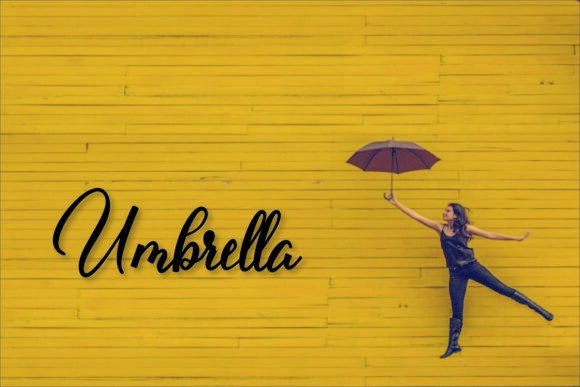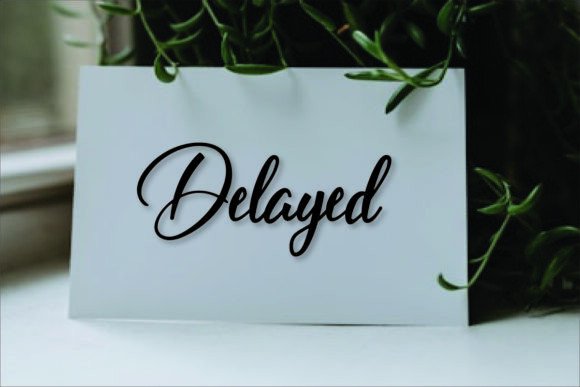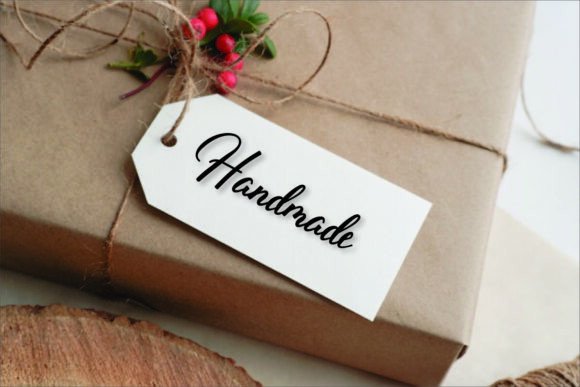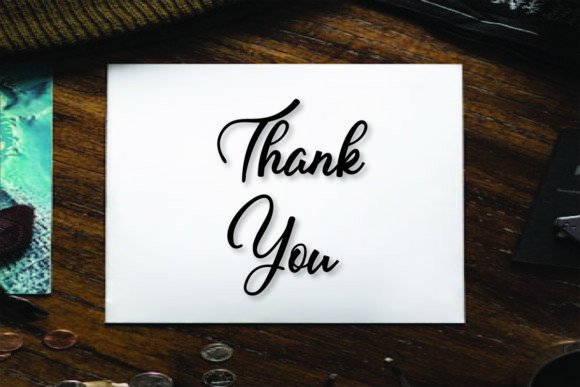
The Perfect Touch of Elegance: Discovering the Beloved Font
Have you ever found yourself staring at a blank page, trying to bring your creative vision to life? The blank slate can be intimidating, but it’s also an opportunity to add that special something that sets your design apart. For many of us, that special something is the perfect font.
Enter the Beloved Font, a trendy handwritten font that exudes a contemporary atmosphere and impeccable form. Inspired by timeless classic calligraphy, this font is the perfect addition to any design project looking to add a touch of elegance and class. Whether you’re working on a wedding invitation, a branding campaign, or a social media post, the Beloved Font is sure to make your design stand out.
Key Features of Beloved Font
- Font Family: Beloved is a modern script font, designed to convey a sense of elegance and sophistication.
- Unique Characteristics: Beloved features a unique, hand-drawn design with subtle flair and personality, making it perfect for creative and design-focused projects.
Beloved Font Review
I’ve had the pleasure of working with the Beloved Font, and I must say it’s a unique addition to any design project. ✨ One of the things I appreciate is its elegant and vintage vibe, making it perfect for historical or romantic-themed designs.
Another advantage is its versatility – the Beloved Font comes in a range of weights and styles, allowing designers to experiment with different looks and moods.
Here are some of the key features I like about the Beloved Font:
- ✨ Elegant and vintage aesthetic
- ✨ Versatile with various weights and styles
- ✨ Excellent for historical, romantic, or vintage-themed designs
However, I do have some reservations about the Beloved Font:
- ⚠️ Some characters may not render properly at smaller font sizes
- ⚠️ Limited support for non-English languages
Overall, I think the Beloved Font is a solid choice for designers looking for a unique and elegant font. While it has its limitations, it’s well-suited for specific design projects. With some careful consideration, the Beloved Font can add a touch of sophistication to any design.
Tips for Getting the Most Out of Beloved Font
Use the Beloved Font for titles and headings to add a touch of elegance and sophistication.
Pair the Beloved Font with a clean and simple font for body text to create a balanced and harmonious design.
Experiment with different font sizes and styles to create visual interest and emphasis.
Branding and marketing materials
Editorial and publishing design
Alternatives to Beloved Font for Designers
Playfair Display is an elegant and luxurious serif font, ideal for use in high-end branding, magazines, and other publications that require sophistication and refinement. It has a more classical feel compared to Beloved Font, which has a more modern and minimalist aesthetic. Playfair Display is best used for headings and titles to add a touch of luxury and glamour.
Great Vibes is a modern and elegant script font that works well for creative and artistic projects. It has a more fluid and cursive feel compared to Beloved Font, which is more geometric and minimalist. Great Vibes is best used for headings and titles to add a touch of personality and whimsy.
Montserrat is a geometric sans-serif font that is highly legible and versatile, making it suitable for a wide range of applications, from body text to headings. It has a more modern and urban feel compared to Beloved Font, which has a more minimalist and clean aesthetic. Montserrat is best used for body text and headings to add a touch of sophistication and modernity.
For optimal readability, we recommend using the Beloved Font at a font size between 12-14 points, with a line height of at least 1.5 times the font size. This will ensure clear and legible text in most design applications.